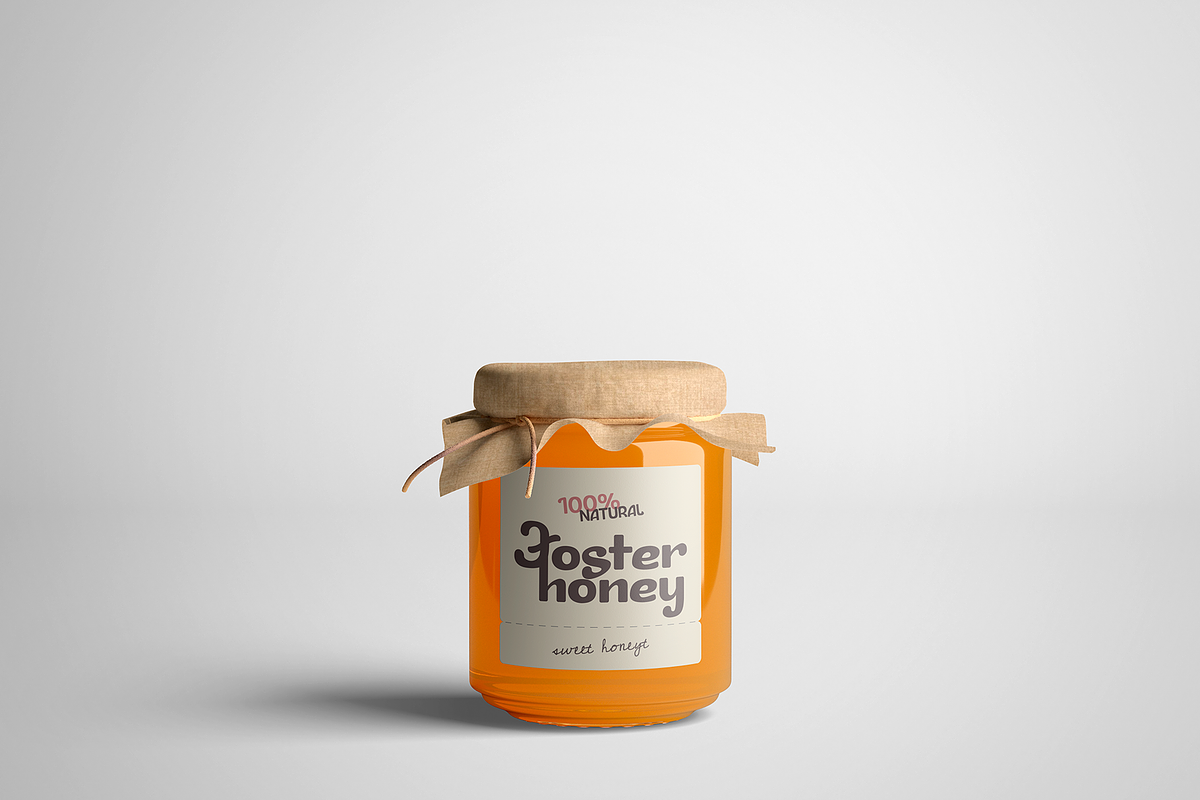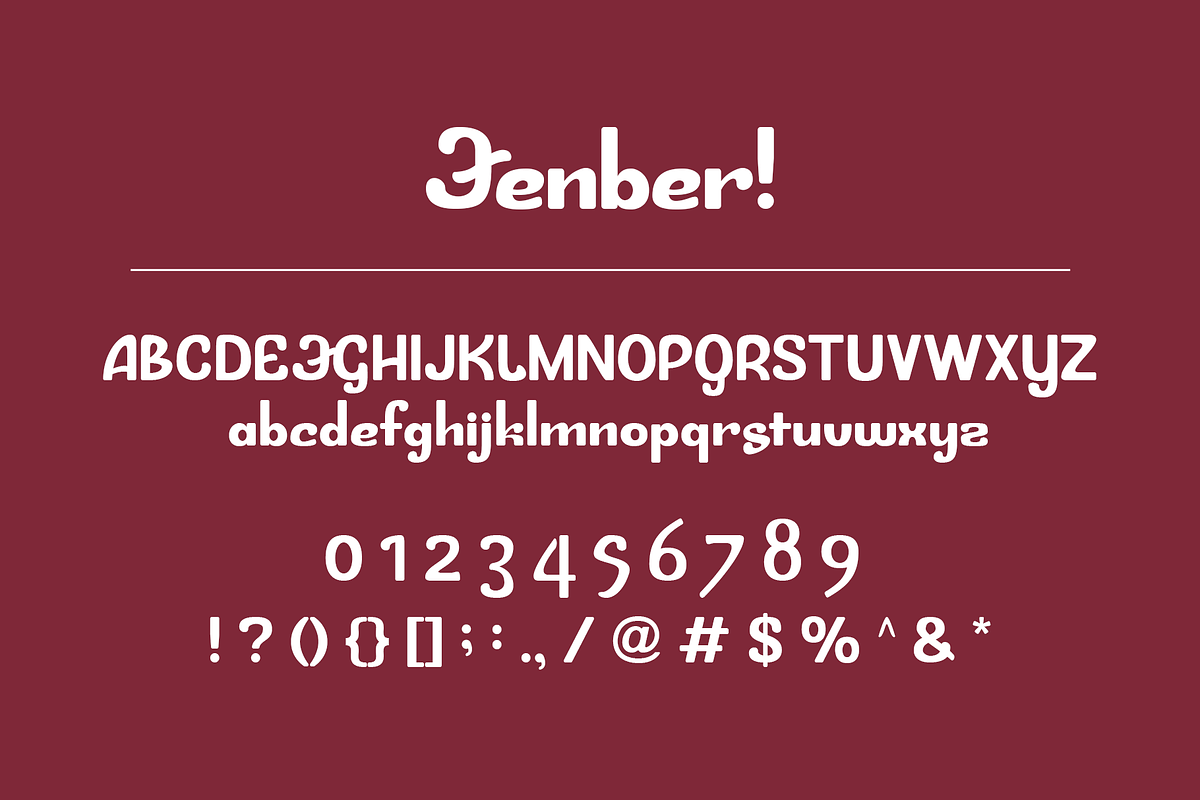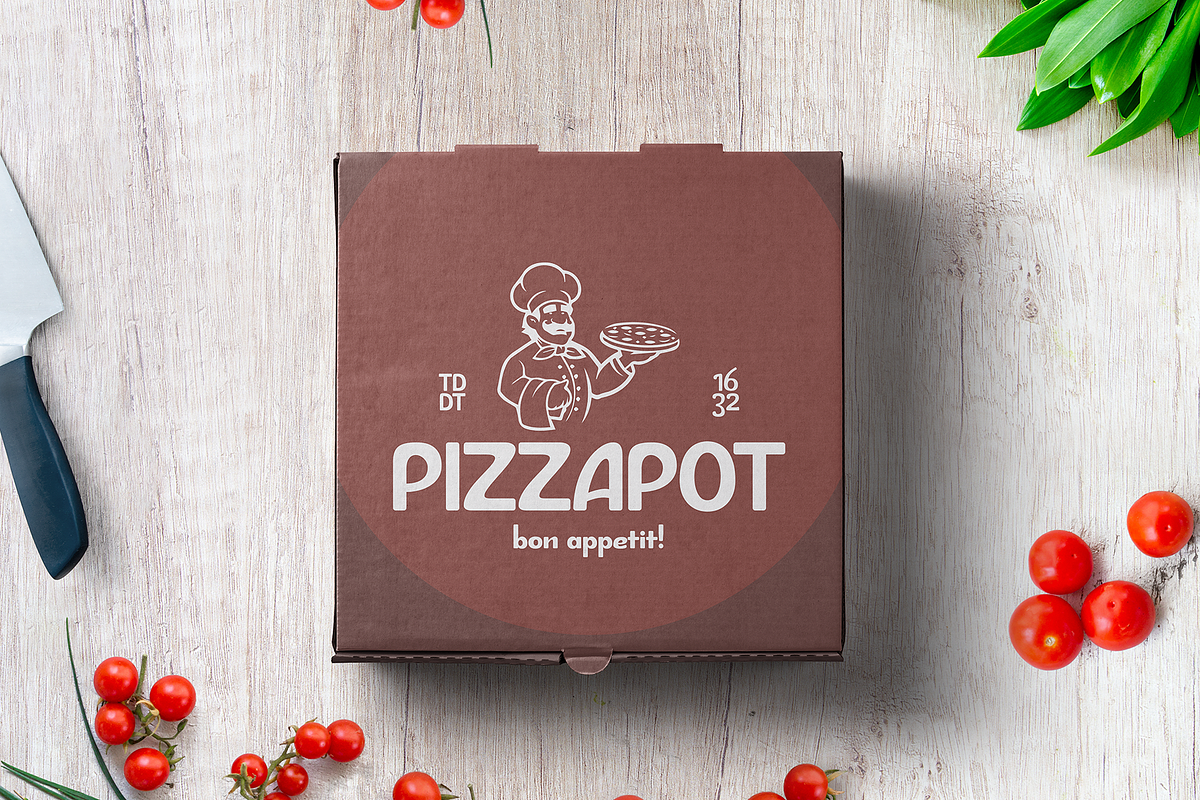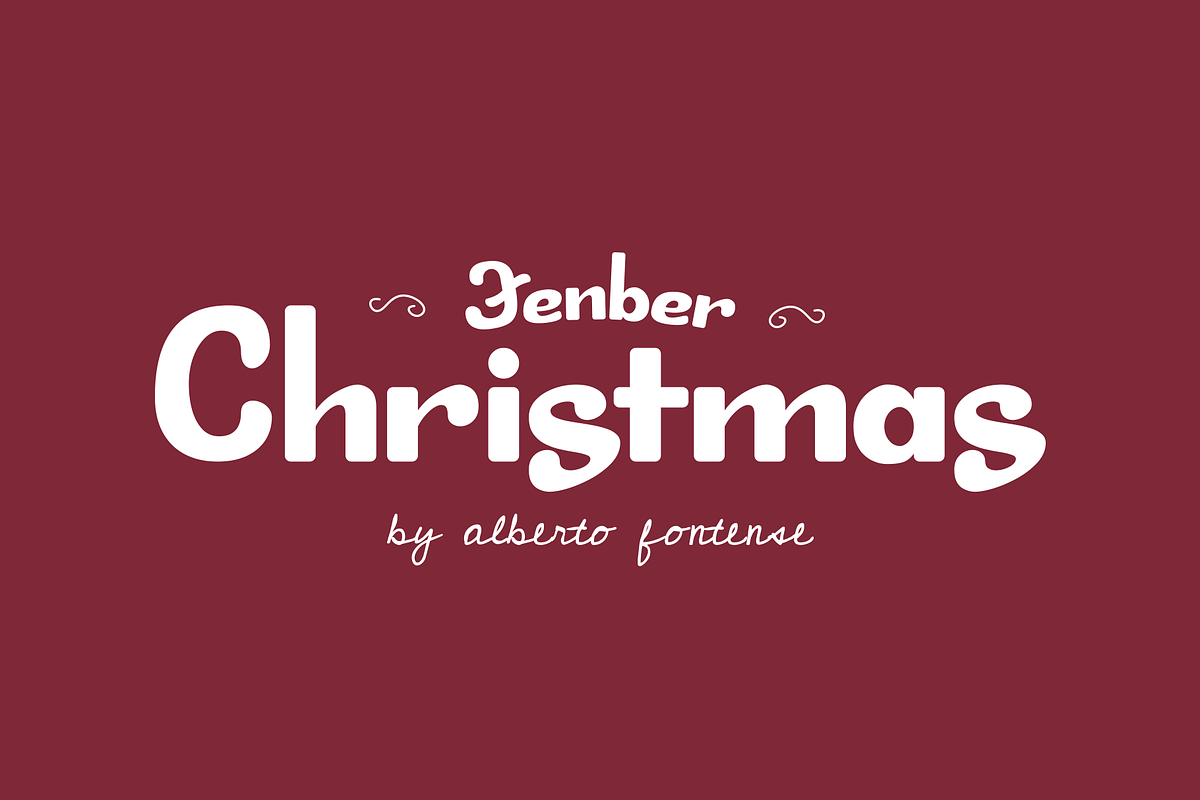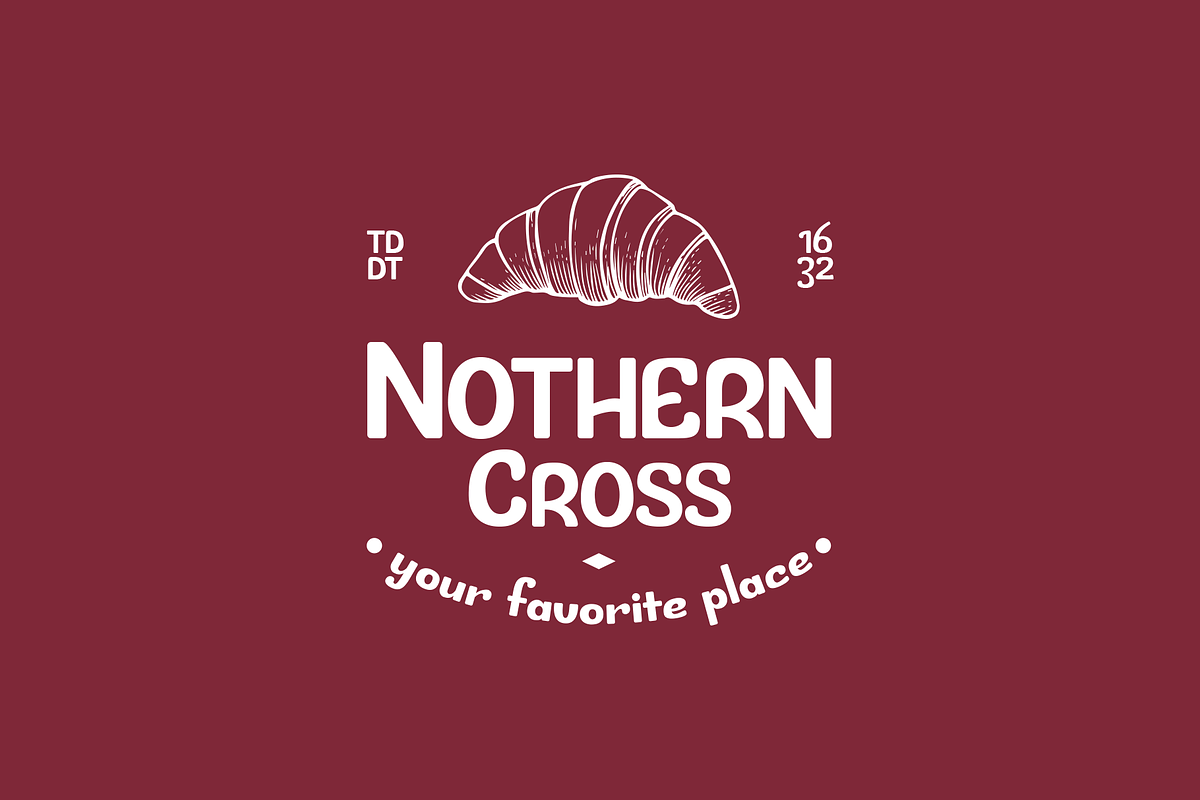
Fenber Christmas - Xmas Holiday Font
vintage classy sans serif
Why Fenber Christmas - Xmas Holiday Font is worth a look
Fenber Christmas - Xmas Holiday Font by Alberto Fontense fits naturally into Branding, posters, packaging, typography.